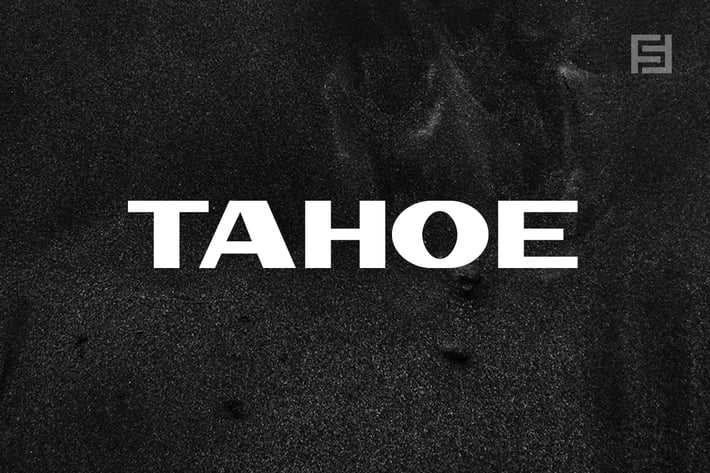
TAHOE - Unique Display Typeface
Tahoe is a unique typeface perfect for headlines, big text, branding, logotypes & display usage. This font can be an excellent choice for creating outstanding logos, promotional content, and marketing graphics that can bring uniqueness and freshness at its level best.
The typeface will be perfect for creating unique monograms, logos, and identities with these combinations. Please see the examples shown above to get an idea of the capability of this typeface.
Tahoe comes with Extended Latin character sets including Western European, Central European, and South-Eastern European character sets (total of 248 glyphs).
Font designed by Lis at Fontastica, distributed by Designova.